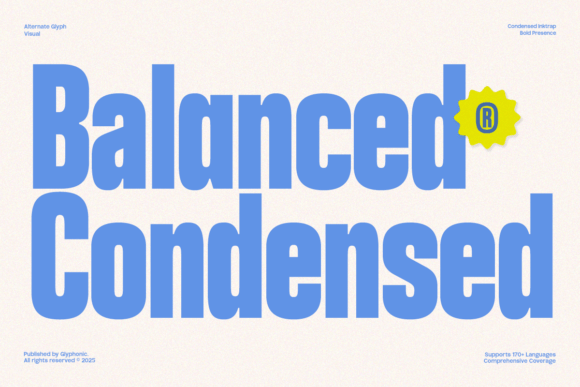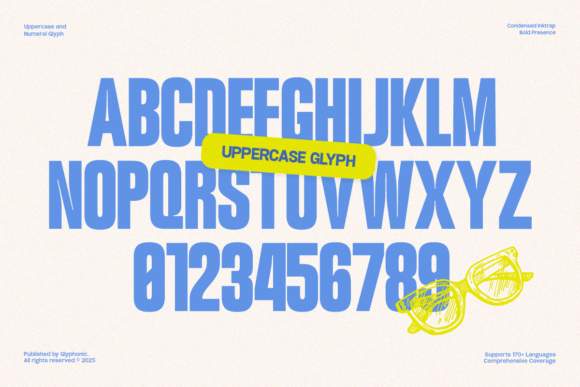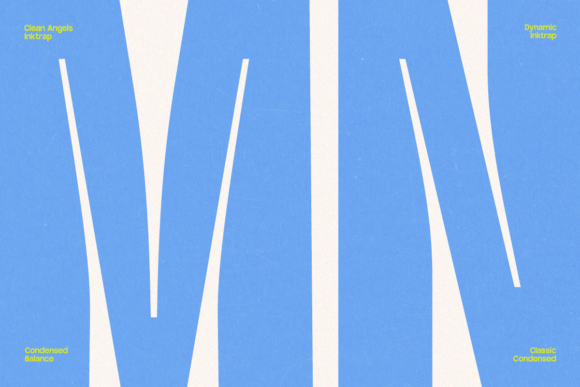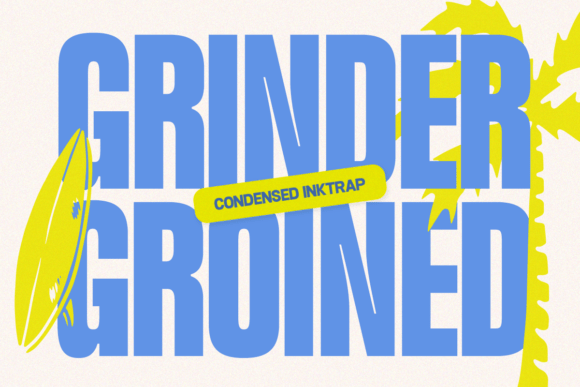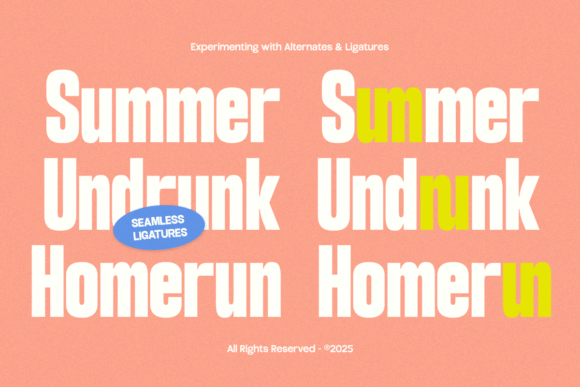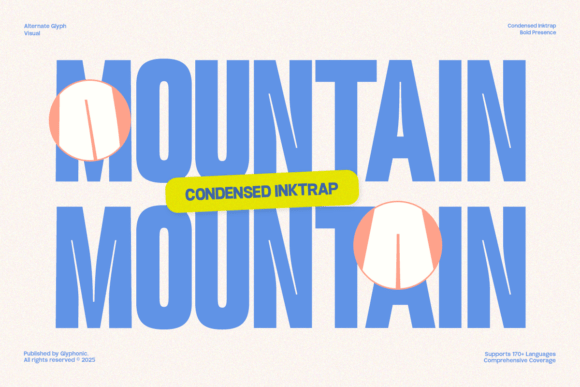
Unleash the Power of Your Typography with GC Grind Font
In the world of design, typography plays a crucial role in conveying messages, evoking emotions, and creating lasting impressions. Among the myriad of fonts available, GC Grind stands out as a striking typeface that embodies strength, impact, and modern versatility. Designed with bold condensed proportions, GC Grind creates a powerful visual presence that commands attention in every context, making it an ideal choice for designers and crafters looking to make a statement.
The Essence of GC Grind
GC Grind is more than just a font; it’s an expression of energy, confidence, and clarity. Its sharp edges, tight spacing, and assertive stance offer a contemporary look that feels dynamic and memorable. This typeface is perfect for projects that require a bold and impactful visual presence, such as posters, headlines, branding, sports, and urban-inspired designs. With GC Grind, you can ensure that your message is not only seen but also felt, leaving a lasting impression on your audience.
One of the key advantages of GC Grind is its versatility. Whether you’re crafting bold editorial statements, standout packaging, or digital visuals that demand attention, this font brings raw power and modern grit to your typography. Its bold and condensed style makes it suitable for a wide range of applications, from print to digital media. The font’s ability to deliver energy and confidence in every letter makes it an excellent choice for designers looking to push the boundaries of their creativity.
PUA-Encoded for Easy Customization
GC Grind font is also PUA-encoded, ensuring effortless access to all glyphs, swashes, and alternate characters. This feature allows designers to customize their creations with ease, adding a personal touch to their projects. The PUA encoding makes it simple to access and use the font’s extensive range of characters, enabling designers to experiment with different styles and effects without any hassle.
Why Choose GC Grind?
- Bold and Impactful: GC Grind’s bold condensed proportions make it perfect for creating a powerful visual presence.
- Versatile: Suitable for a wide range of applications, from posters and headlines to branding and digital visuals.
- Customizable: PUA-encoded for easy access to glyphs, swashes, and alternate characters.
- Modern and Dynamic: Offers a contemporary look that feels dynamic and memorable.
Applications of GC Grind
GC Grind’s unique characteristics make it suitable for various design projects. Here are some of the ideal applications for this powerful typeface:
- Posters and Flyers: Create eye-catching posters and flyers that demand attention.
- Headlines and Titles: Use GC Grind for headlines and titles that need to make a bold statement.
- Branding: Establish a strong brand identity with a font that exudes confidence and energy.
- Sports and Urban-Inspired Designs: Perfect for designs that require a modern and dynamic look.
- Digital Visuals: Use GC Grind to create digital visuals that stand out in a crowded online space.
In conclusion, GC Grind is a powerful and versatile typeface that can elevate your designs to new heights. Its bold and condensed style, combined with its modern and dynamic look, makes it perfect for a wide range of applications. With its PUA encoding, designers can easily customize their creations, adding a personal touch to their projects. Whether you’re a designer or crafter, GC Grind is an excellent choice for anyone looking to make a statement with their typography. So, why settle for ordinary when you can make your design bold, condensed, and full of impact with GC Grind – Bold Condensed Fonts?